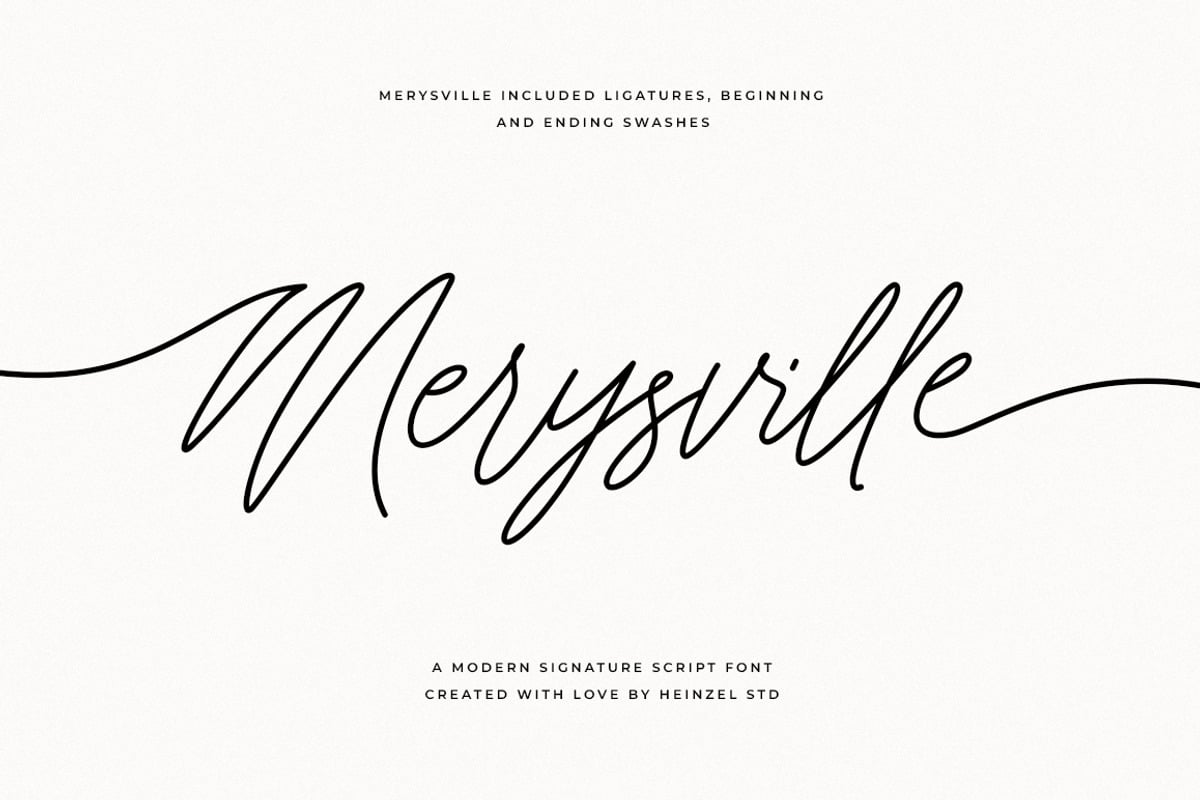
Merysville Modern Signature Font
Merysville is the elegant signature font that brings authentic handwritten sophistication to every design it touches.
Inspired by natural handwriting strokes, Merysville is a refined modern script typeface featuring smooth curves, balanced spacing, and a fluid flow that convincingly mimics real signature writing. Its clean yet expressive character works beautifully in both minimal and decorative layouts — readable without sacrificing artistic flair.
Crafted with versatility in mind, this font is ideal for branding, wedding invitations, logos, social media graphics, packaging, and more. Whether you need luxurious elegance or a personal, handcrafted touch, Merysville delivers a sophisticated aesthetic that elevates any project.
- Bold and Regular versions
- Uppercase and lowercase characters
- Numerals and punctuation
- Beginning and ending swashes
- Ligatures and stylistic alternates
- Multilingual language support